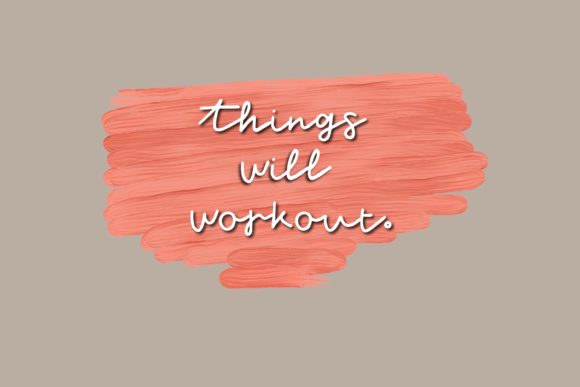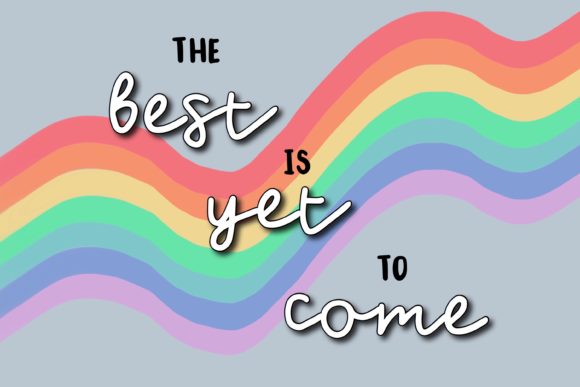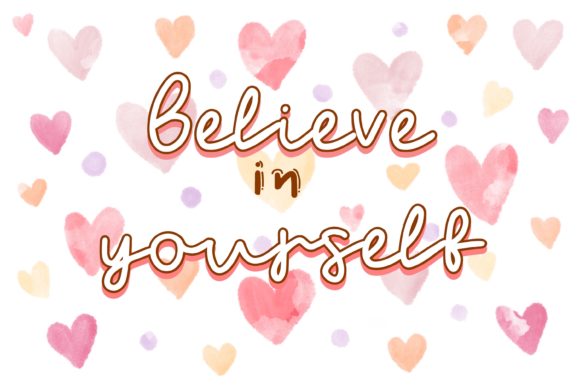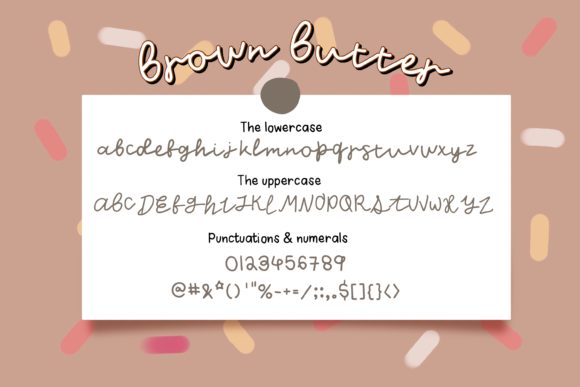
Brown Butter Font: Adding a Touch of Whimsy to Your Designs
In the world of typography, fonts play a crucial role in conveying the tone and personality of a brand or design. If you’re looking for a font that embodies fun, quirkiness, and authenticity, look no further than the Brown Butter font. This enchanting handwritten font is sure to turn any creative idea into a true standout, making it a must-have for designers and crafters alike.
The Charm of Brown Butter Font
Brown Butter font is a unique and captivating typeface that exudes a sense of playfulness and charm. Its handwritten style gives it a personal and approachable feel, making it perfect for designs that require a touch of warmth and personality. The font’s quirky and irregular shapes add to its whimsical nature, making it a great choice for projects that require a bit of flair.
Key Features of Brown Butter Font
• Handwritten style: Brown Butter font boasts a beautiful, handwritten style that gives it a personal and authentic feel.
• Quirky and irregular shapes: The font’s quirky and irregular shapes add to its whimsical nature, making it perfect for designs that require a bit of personality.
• Fun and playful: Brown Butter font is the perfect choice for designs that require a fun and playful touch.
• Authentic and unique: The font’s unique and authentic style sets it apart from other fonts, making it a great choice for designers looking to create something truly original.
Uses of Brown Butter Font
Brown Butter font is a versatile typeface that can be used in a variety of design projects, including:
• Branding and logos: The font’s unique and quirky style makes it perfect for creating memorable and eye-catching logos.
• Invitations and greeting cards: Brown Butter font is a great choice for creating invitations and greeting cards that require a personal and whimsical touch.
• Social media graphics: The font’s playful and fun style makes it perfect for creating engaging and shareable social media graphics.
• Packaging and product design: Brown Butter font can add a touch of personality and whimsy to packaging and product design, making it stand out on store shelves.
Why Designers and Crafters Love Brown Butter Font
Designers and crafters love Brown Butter font for its unique and captivating style. The font’s handwritten and quirky nature makes it perfect for creating designs that require a personal touch. Additionally, the font’s versatility and wide range of uses make it a valuable addition to any designer’s toolkit.
Tips for Using Brown Butter Font
• Pair with contrasting fonts: Pair Brown Butter font with contrasting fonts to create visual interest and add depth to your design.
• Experiment with colors: The font’s playful style lends itself well to bright and bold colors, so don’t be afraid to experiment and find the perfect hue for your design.
• Use for headlines and titles: Brown Butter font is perfect for headlines and titles, where its quirky and whimsical style can really shine.
In conclusion, Brown Butter font is a unique and captivating typeface that embodies fun, quirkiness, and authenticity. Its handwritten style and quirky shapes make it perfect for designs that require a personal and whimsical touch. Whether you’re a designer or crafter, Brown Butter font is a must-have for any project that requires a bit of flair and personality. So why not give it a try and see how it can elevate your designs to the next level?